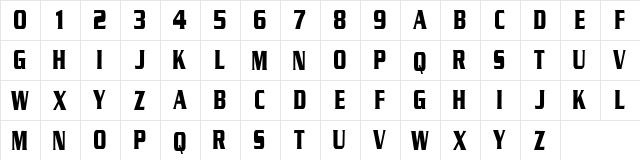
NHL Ottawa Alternate Regular Font Preview
NHL Ottawa Alternate Regular
NHL Ottawa Alternate Regular Font Details
Design Context for NHL Ottawa Alternate Typeface
NHL Ottawa Alternate takes a measured approach to typography — its balanced proportions and neutral character make it a reliable workhorse for both digital and print work.